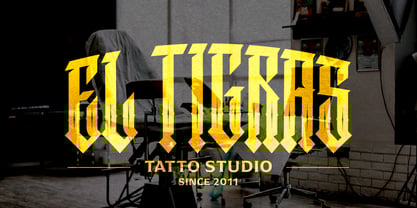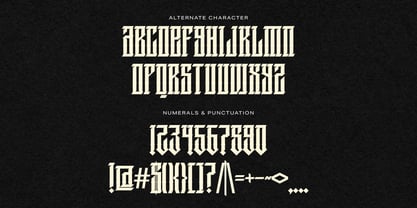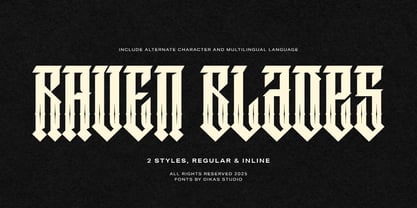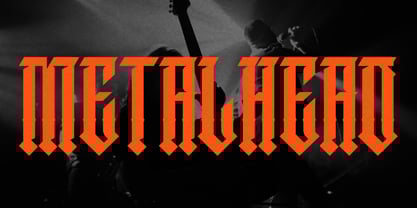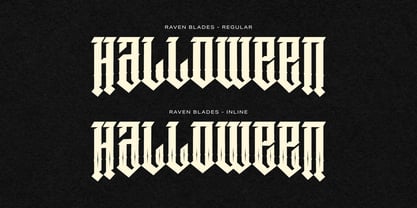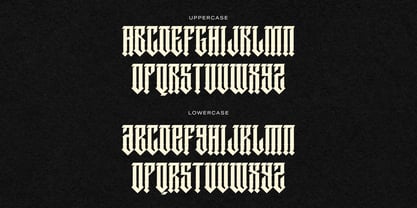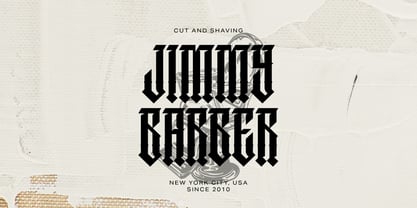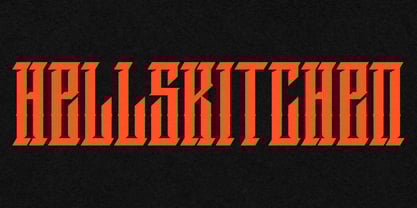
Raven Blades
by Dikas Studio
The Raven Blades Font Family was designed by Andika Setiawan and published by Dikas Studio. Raven Blades contains 2 styles and family package options.
Raven Blades is a striking display font with razor-sharp edges, angular shapes, and a bold, boxy structure. Designed to evoke a gothic and edgy vibe, it’s the perfect fit for Halloween designs, gothic aesthetics, and heavy metal themes. Whether you're working on a music poster, band logo, or eerie branding, Raven Blades cuts through with power and precision.